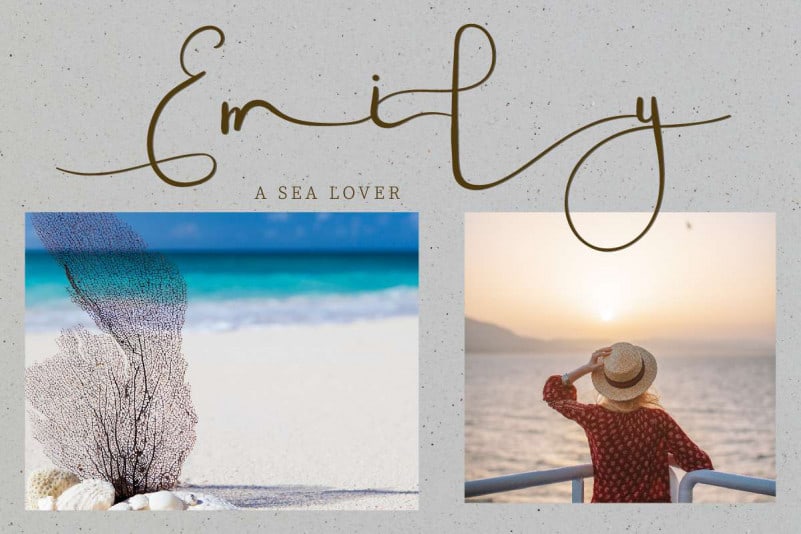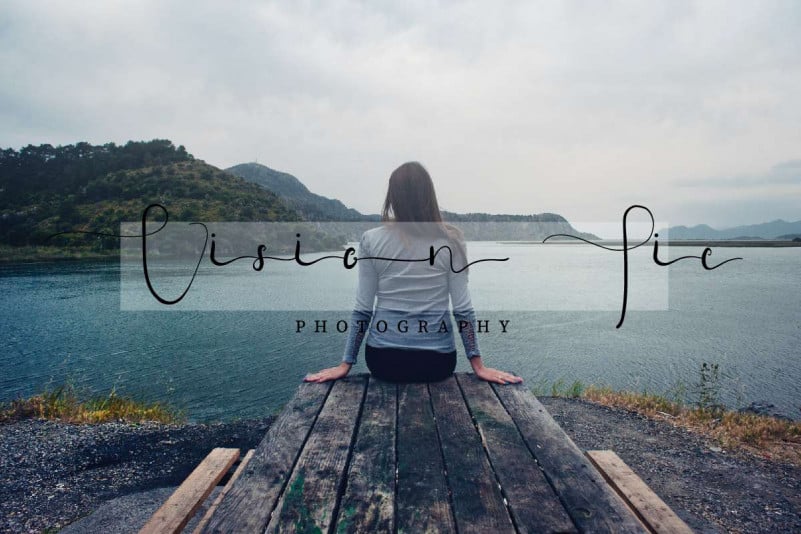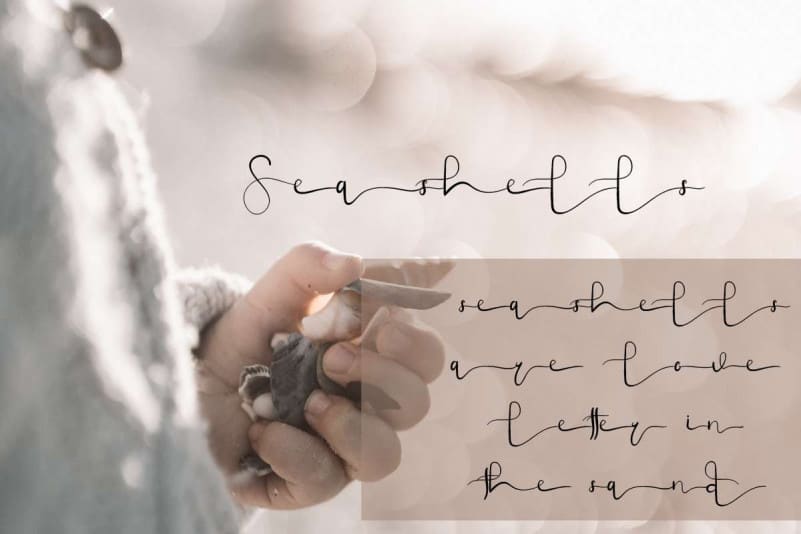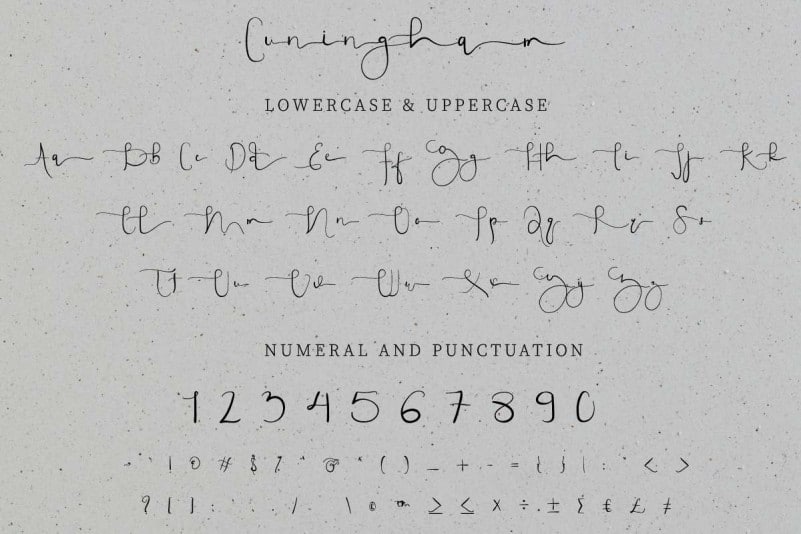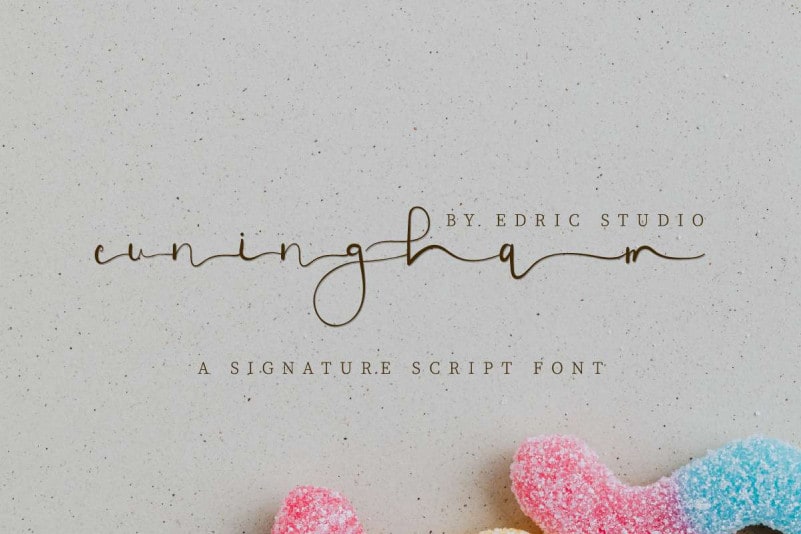
Cuningham Signature Script Font
Cuningham Signature Script Font is an exclusive script typeface with rough hand-drawn texture. This font has an awesome characters set, perfectly managed with well spaced and kerning. The theme style of this font is horror, vintage, grunge, dark and mysterious brush style.